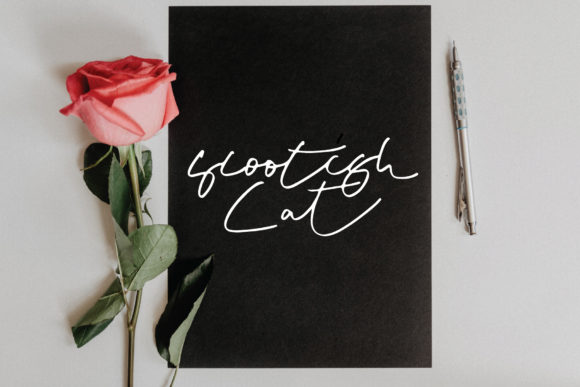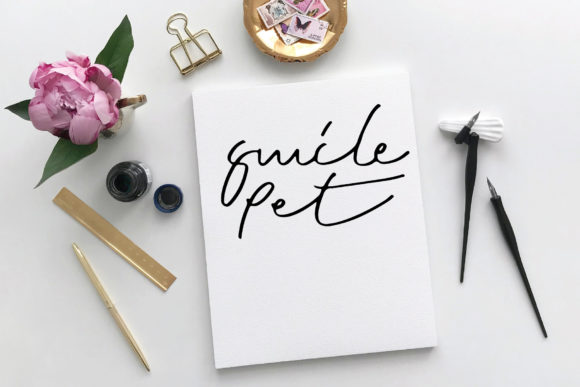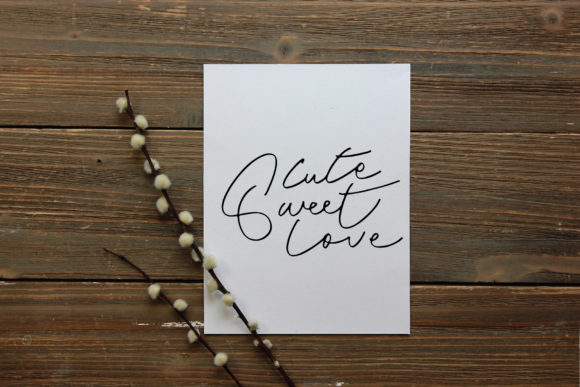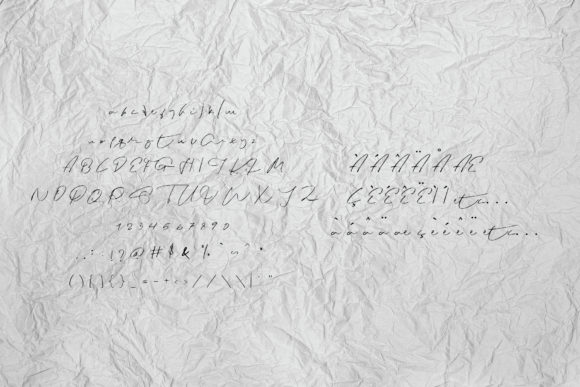
Scootish Cat Font
About Scootish Cat Font
Scootish Cat is a playful, light and incredibly romantic font with a unique twist. Ignite your creativity with its authentic charm!